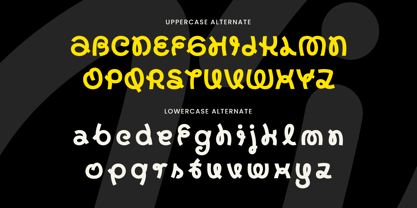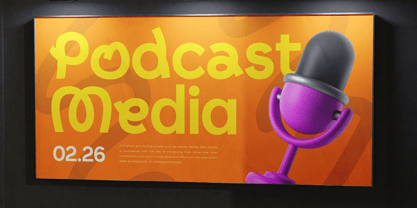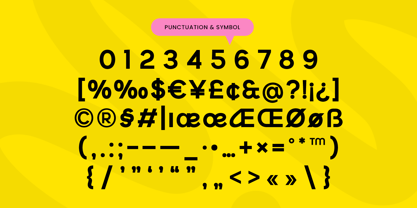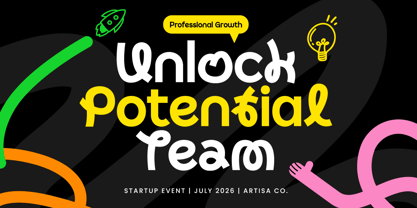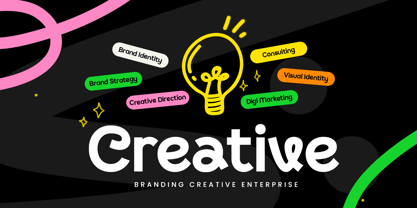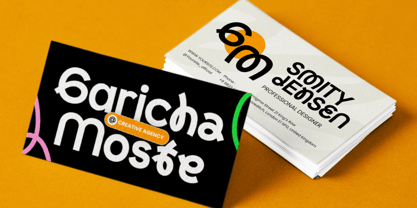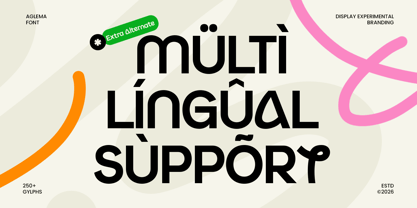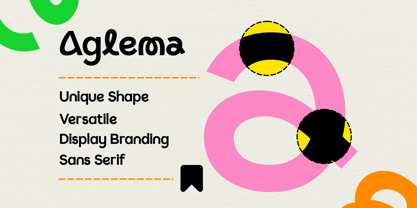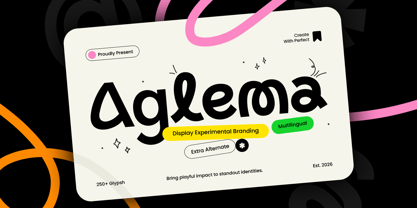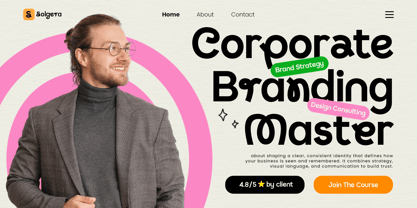
Aglema
Aglema is a display fun playful font designed to bring cheerful energy and friendly personality to your typography. With lively letterforms, expressive shapes, and a joyful display rhythm, this typeface creates a bright visual tone that feels fun, approachable, and instantly memorable.
Built for playful branding and headline-driven layouts, Aglema works beautifully across logos, wordmarks, kids projects, packaging, posters, stickers, social media graphics, website headers, labels, and promotional visuals. Its display structure keeps every word clear and eye-catching while adding a charming, lighthearted mood across both digital and print design.
Whether you’re building a cute brand identity, designing cheerful product packaging, creating kid-friendly visuals, or crafting fun promotional content, Aglema provides a playful typographic foundation that makes your designs feel warm, expressive, and full of character.
Inspiration Behind Aglema
Aglema is inspired by playful display lettering and cheerful creative branding—where bold shapes, friendly rhythm, and expressive personality create instant visual happiness. The design focuses on joyful character and approachable styling to support cute logos, fun headlines, and energetic brand communication.
Aglema Font Features:
• Fun playful display letterforms with cheerful character
• Perfect for cute branding, logos, posters, and headlines
• Strong readability with friendly shapes and lively rhythm
• Ideal for kids projects, stickers, packaging, and social media visuals
• Uppercase, lowercase, numerals, and punctuation included
• OpenType features for polished professional typesetting
Perfect For
• Playful logos, wordmarks, and cheerful brand identity systems
• Kids projects, toy branding, and educational visuals
• Packaging, labels, stickers, and fun product branding
• Posters, social media graphics, and promotional headlines
• Website headers, digital banners, and creative marketing layouts
Multilingual Support
Afrikaans, Albanian, Asu, Basque, Bemba, Bena, Breton, Chiga, Cornish, Dutch, English, Estonian, Filipino, Finnish, Friulian, Galician, German, Gusii, Indonesian, Irish, Italian, Kabuverdianu, Kalenjin, Kinyarwanda, Luo, Luxembourgish, Luyia, Machame, Makhuwa-Meetto, Makonde, Malagasy, Manx, Morisyen, North Ndebele, Nyankole, Oromo, Portuguese, Quechua, Romansh, Rombo, Rundi, Rwa, Samburu, Sango, Sangu, Scottish Gaelic, Sena, Shambala, Shona, Soga, Somali, Spanish, Swahili, Swedish, Swiss, and more.
Make your visuals feel bright and joyful with Aglema—a playful display font made for cheerful creative impact. ✨